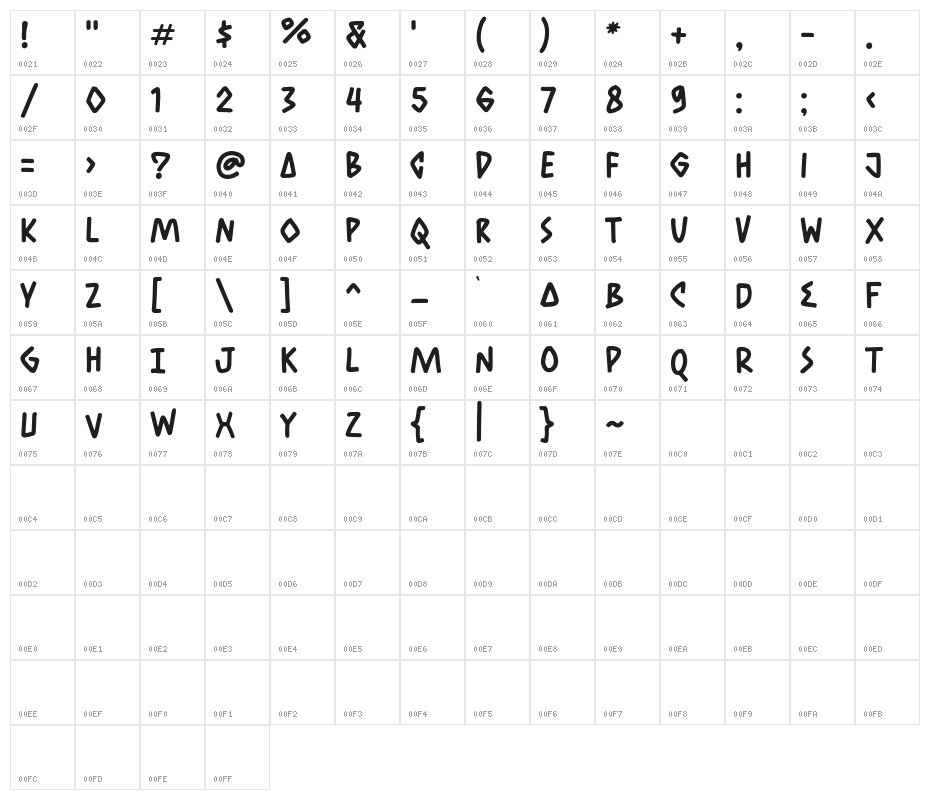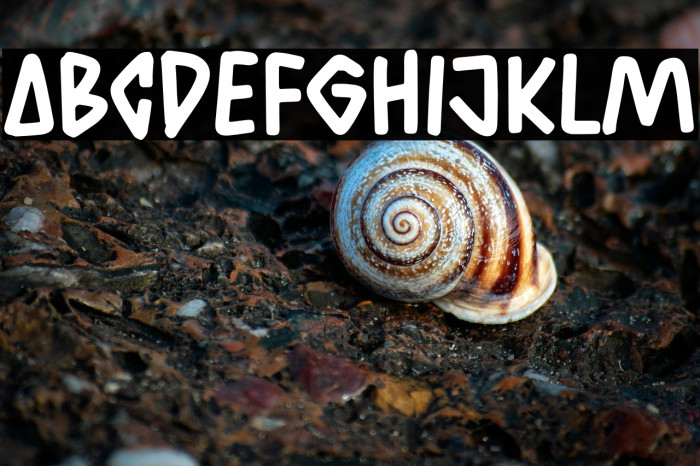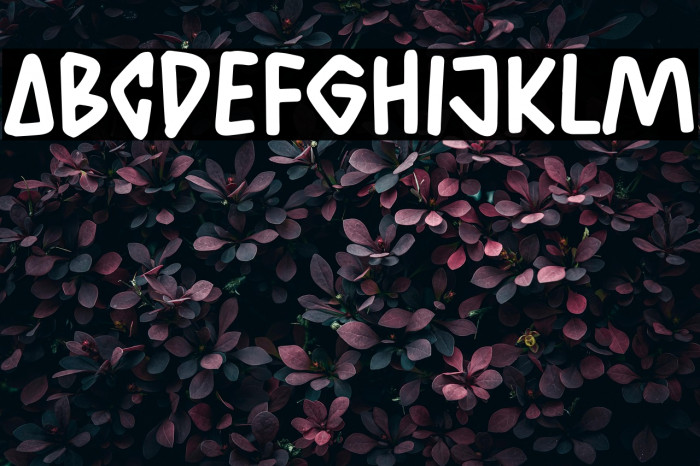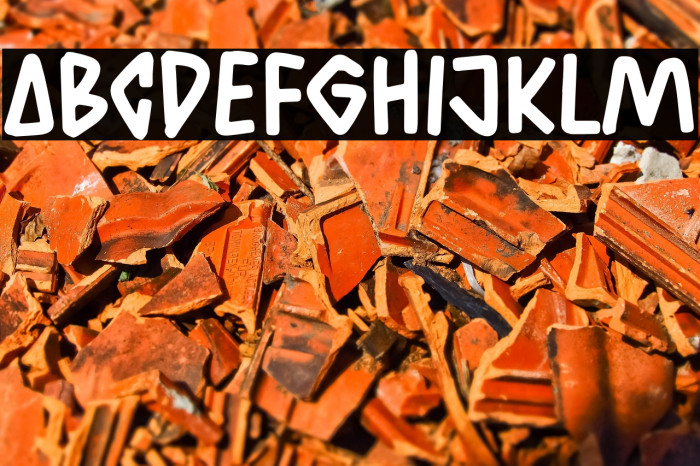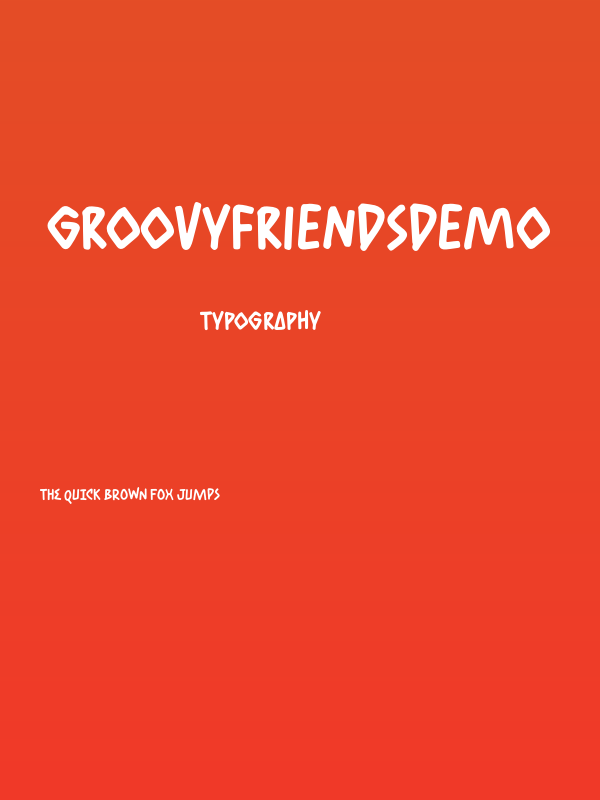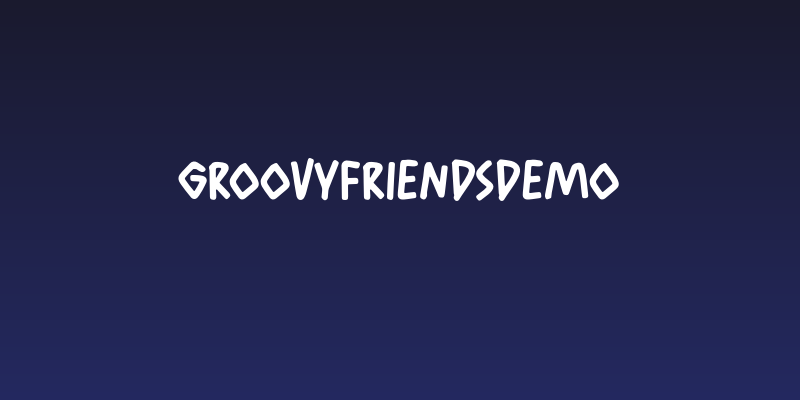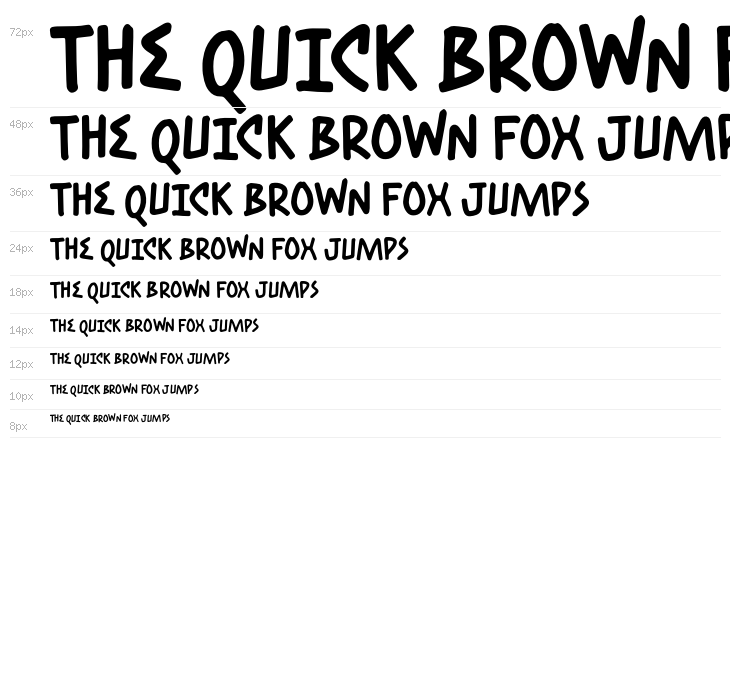
GroovyFriendsDemo Font
This font exudes a playful and energetic vibe, characterized by its bold and rounded letterforms. The strokes are thick and consistent, giving it a strong presence on the page. Each character has a slightly irregular shape, adding to its whimsical and informal feel. The font maintains a consistent baseline, but the varying widths and angles of the letters contribute to its dynamic appearance. It is highly legible, making it suitable for attention-grabbing headlines or creative projects that require a fun and approachable aesthetic.
| Overall Style | Playful |
| Proposed Projects | Ideal for children's books, playful branding, event posters, and social media graphics. |